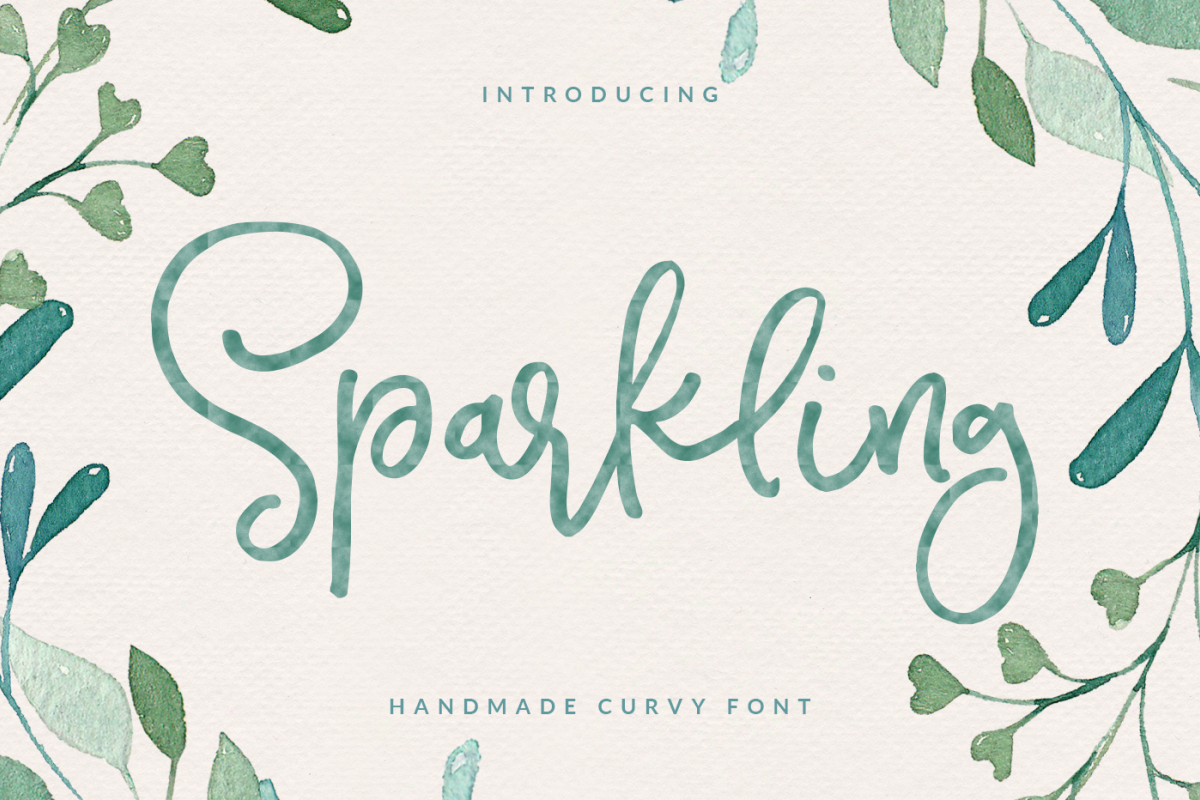
Sparkling Script Font
About SparklingHello,Let me introduce Sparkling font to you. It is a font you can create awesome things with it. No matter you are working on a invitation or special card, Sparkling will be with you :-)GREAT FOR-Glass designs -Business card projects -Tshirt designs
• Messages for special days
• Characteristic company logos
• Blog pages
• Logo of brands
• Projects you need to utilize a premium font
• The projects that require a font including lots of alternates WHAT'S INCLUDED?